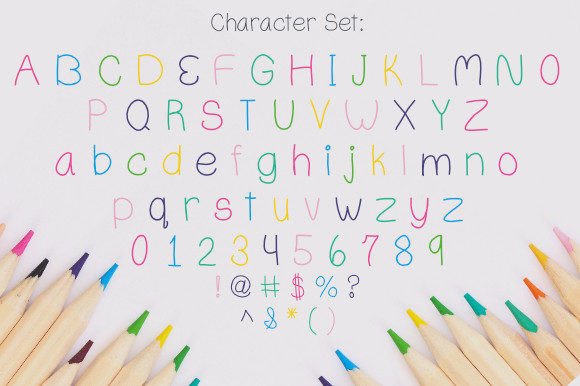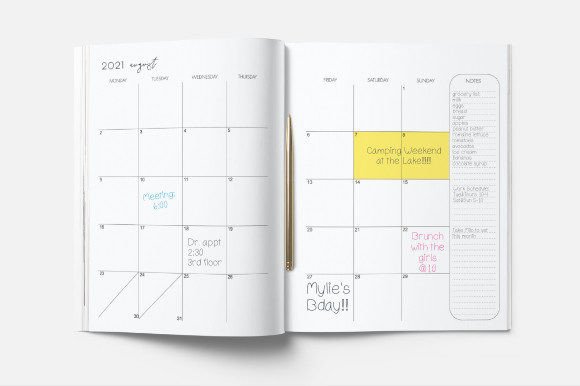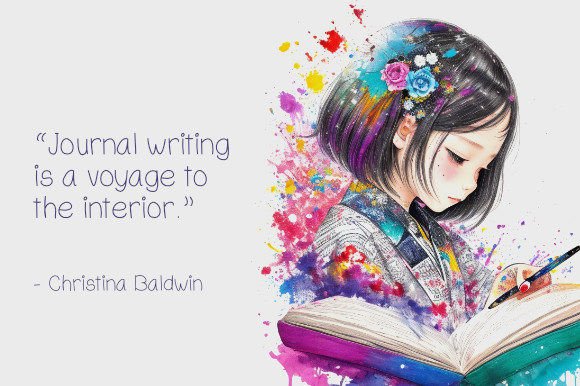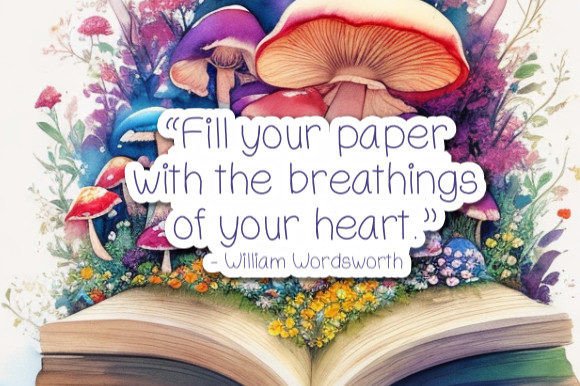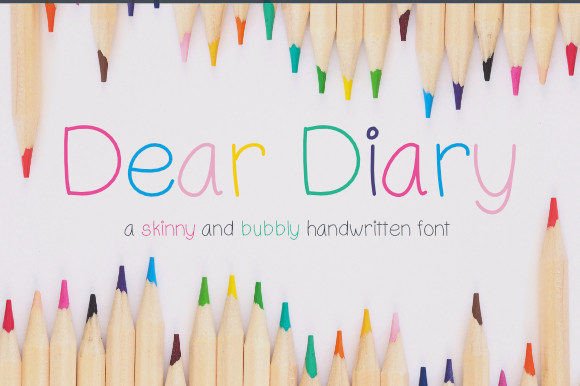
Introducing Dear Diary Font: The Perfect Handwritten Font for Digital Planning and Note Booking
Are you a designer or crafter looking for a font that can add a personal touch to your digital planning and note booking projects? Look no further than Dear Diary Font, a skinny and bubbly handwritten font that’s perfect for creating a natural, handwritten look. In this article, we’ll explore the features and benefits of Dear Diary Font, and show you how it can be used to take your projects to the next level.
What is Dear Diary Font?
Dear Diary Font is a unique and charming handwritten font that’s designed to mimic the look of natural handwriting. It’s skinny and bubbly, with a playful and carefree feel that’s perfect for digital planning and note booking. The font is highly legible and versatile, making it suitable for a wide range of projects, from planner and notebook mockups to journals, diaries, and more.
Key Features of Dear Diary Font
- Natural Handwritten Look: Dear Diary Font has a natural, handwritten look that’s perfect for creating digital planning and note booking projects that feel personal and authentic.
- Skinny and Bubbly: The font’s skinny and bubbly style gives it a playful and carefree feel that’s sure to delight.
- Highly Legible: Despite its playful style, Dear Diary Font is highly legible, making it easy to read and use in a variety of projects.
- Versatile: The font is highly versatile, and can be used for an endless number of projects, from planner and notebook mockups to journals, diaries, and more.
Benefits of Using Dear Diary Font
So why should you choose Dear Diary Font for your digital planning and note booking projects? Here are just a few benefits of using this amazing font:
- Adds a Personal Touch: Dear Diary Font adds a personal touch to your projects, making them feel more authentic and engaging.
- Increases Engagement: The font’s playful and carefree style is sure to increase engagement and make your projects more enjoyable to use.
- Perfect for Mockups: Dear Diary Font is perfect for creating realistic planner and notebook mockups that will help you showcase your designs in a compelling and effective way.
- Saves Time: With Dear Diary Font, you can create professional-looking projects in no time, saving you time and effort.
How to Use Dear Diary Font
Using Dear Diary Font is easy! Here are a few tips to get you started:
- Digital Planning: Use Dear Diary Font to create digital planning projects that feel personal and authentic.
- Note Booking: The font is perfect for note booking projects, adding a playful and carefree touch to your notes.
- Mockups: Use Dear Diary Font to create realistic planner and notebook mockups that will help you showcase your designs.
- Journals and Diaries: The font is also perfect for creating journals and diaries that feel personal and engaging.
In conclusion, Dear Diary Font is a unique and charming handwritten font that’s perfect for digital planning and note booking projects. Its natural, handwritten look and playful style make it a great choice for designers and crafters who want to add a personal touch to their projects. With its high legibility and versatility, Dear Diary Font is sure to become a favorite in your font collection.